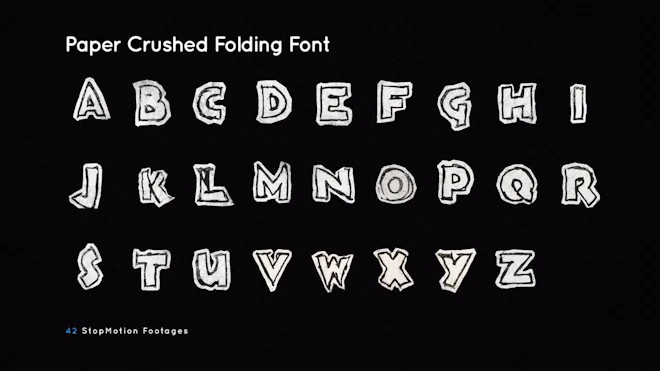
Paper Crushed Folding Font Pack contains 42 stop motion footage of the alphabet and numbers, being crumpled and folded. The figures are manually animated and shot frame by frame. This 3840x2160 (4K) footage comes with alpha channel and will look excellent in any video project that relates to stress and hard work. Incorporate this footage in your next project, intro, Youtube video, etc. Your viewers will be astonished.